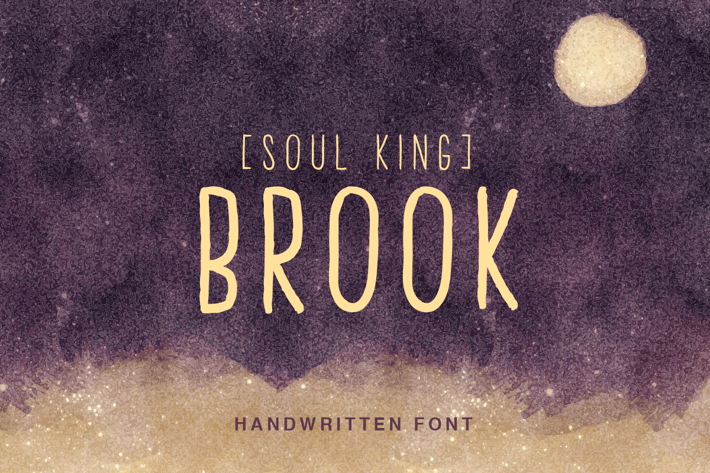
Brook Handwritten Font
Introducing Brook - a new beautiful handcrafted font for your projects, comes with upper characters within the 4 weight fonts ( Bold, Regular, Light, and Thin). So beautiful on invitation like greeting cards, branding materials, business cards, quotes, posters, and more.
4 Weights Serif (Bold, Regular, Light, and Thin)